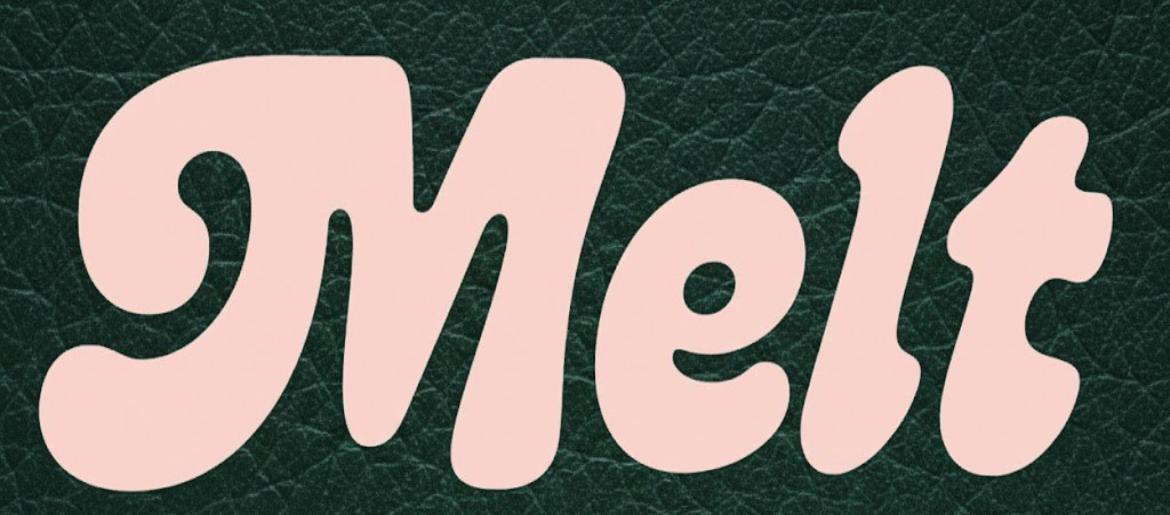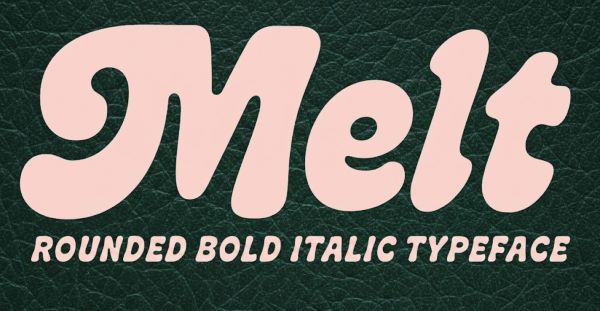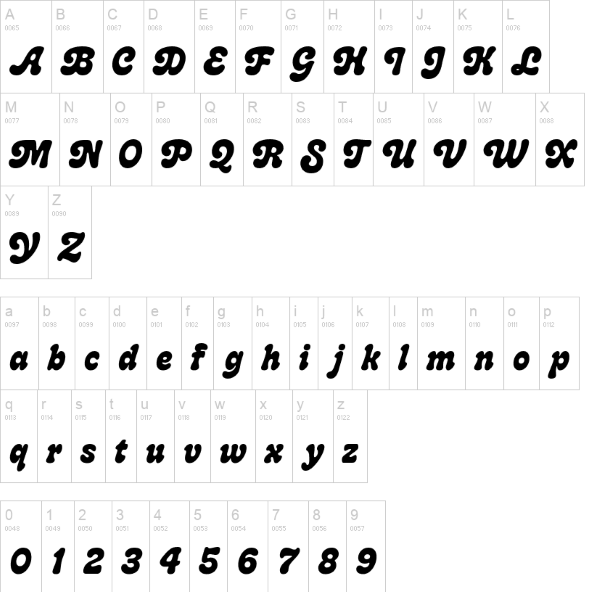
Melt Swashes Font
Melt Swashes Font is a decorative display typeface featuring fluid, melting-style swashes and expressive curves. Its playful yet dramatic character makes it ideal for logos, posters, album artwork, headlines, and creative branding. The dynamic swash details add motion and personality, helping designs feel bold, artistic, and visually unforgettable.
➤ Font Name: Melt Swashes
➤ Designer: Ilham Herry
➤ Style: Groovy